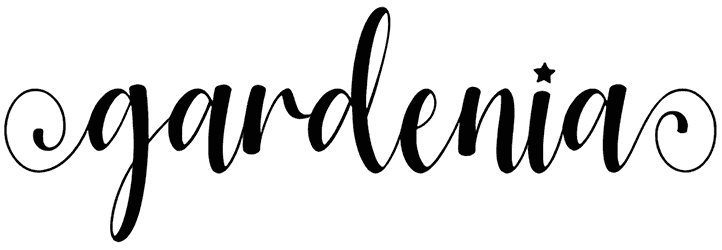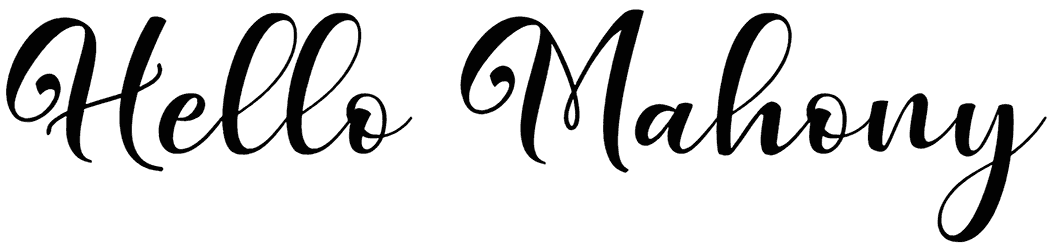
Romantyc Goblins Font
Design your text funnily and whimsically and win the hearts of viewers who love scary patterns. As a whimsical font, Romantyc Goblins shows a delicate face with a twisty style. By good luck, you have A-Z characters and can use this decorative font for various layouts, namely Halloween decorations, movies, games, apparel, and so forth.
Designed by: Letterena Studios